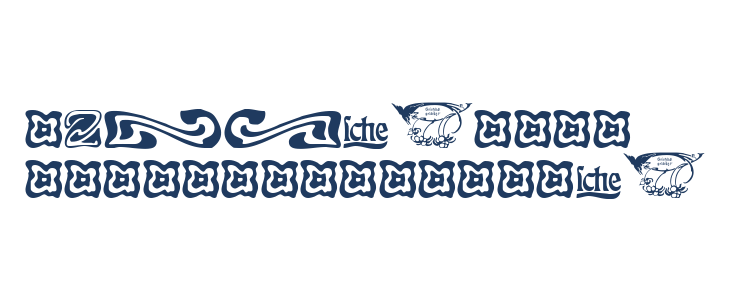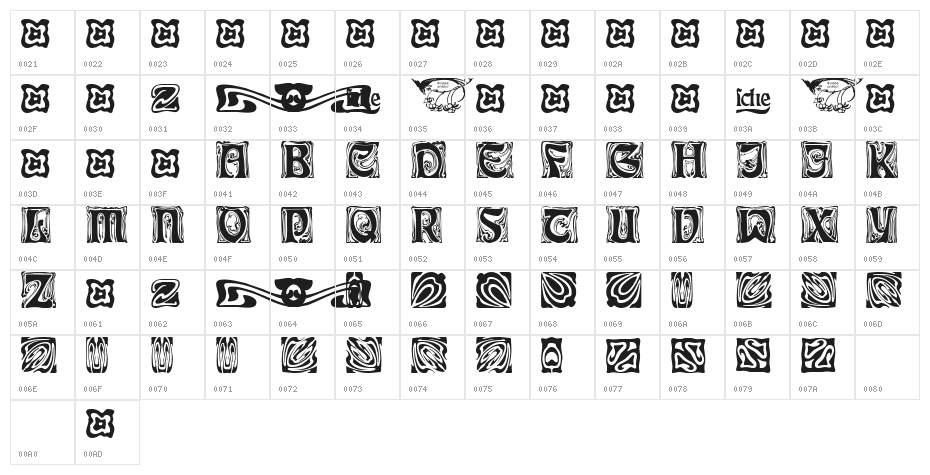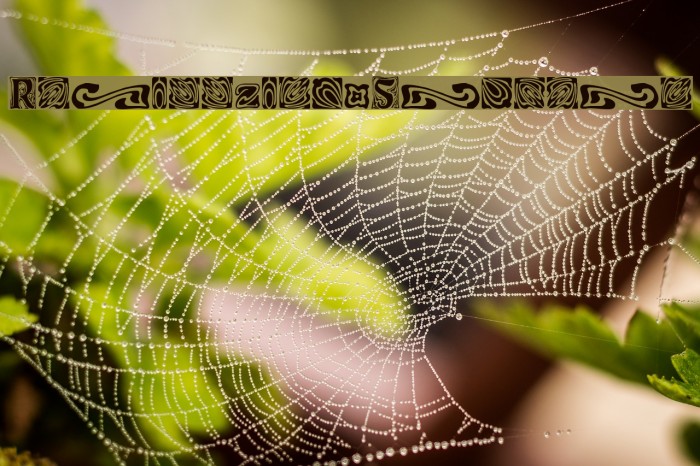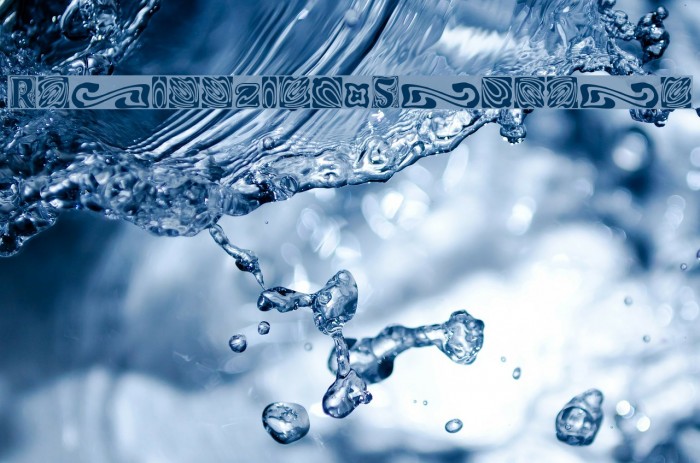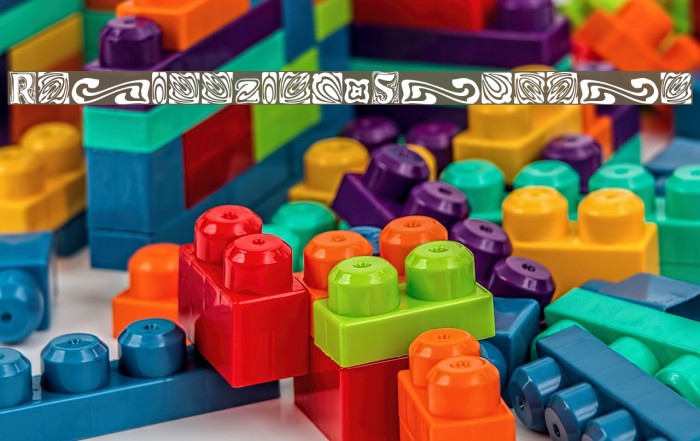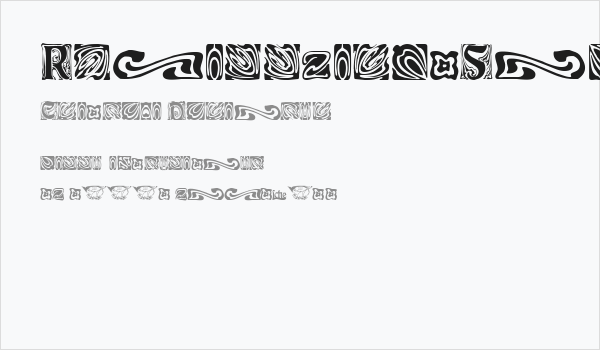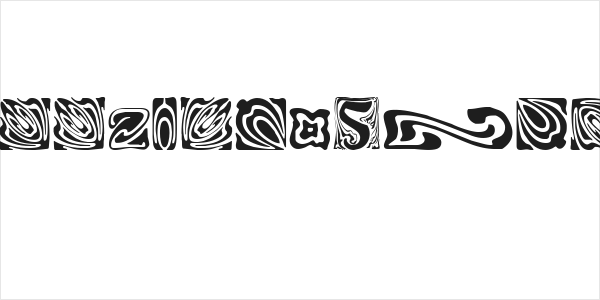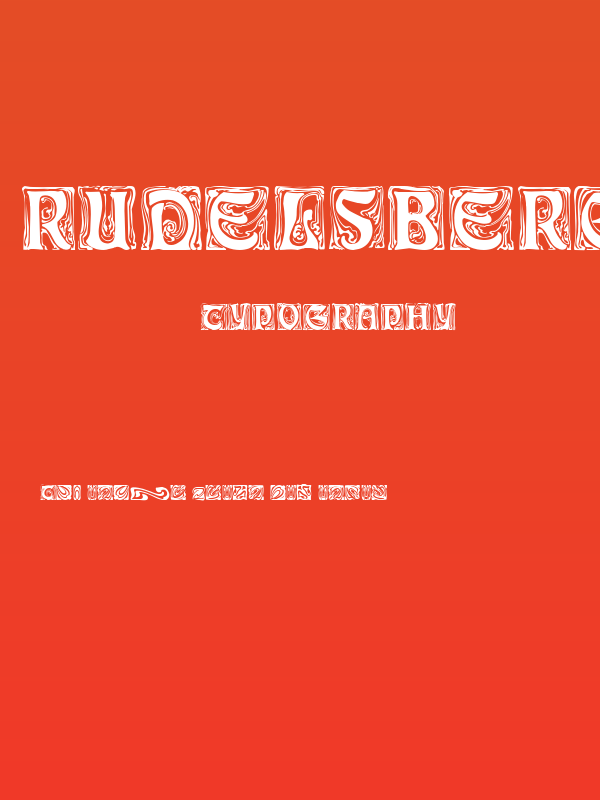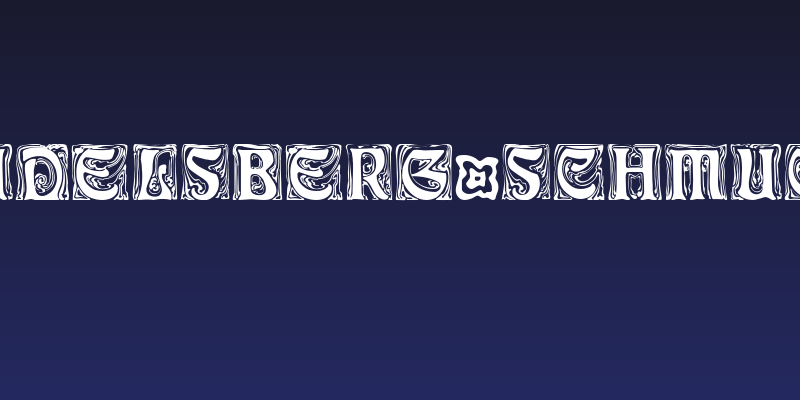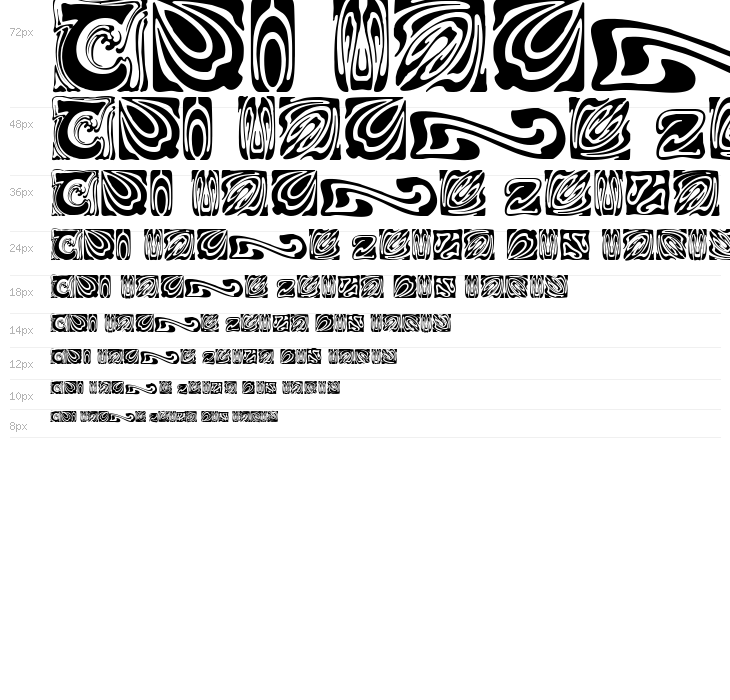
Rudelsberg-Schmuck Font
✎ Art Nouveau
Rudelsberg-Schmuck Description
This font features an intricate and decorative design, characterized by its ornate and swirling patterns within each character. The letters are enclosed in a square-like frame, giving them a structured yet artistic appearance. The elaborate detailing within each letter suggests a handcrafted aesthetic, reminiscent of Art Nouveau influences. The font's unique style makes it stand out, with each character appearing as a piece of art. The bold and complex patterns create a high contrast between the filled and empty spaces, enhancing its decorative appeal.
| Proposed Projects | Ideal for use in artistic projects, decorative headings, invitations, posters, and any design requiring a touch of elegance and sophistication. |